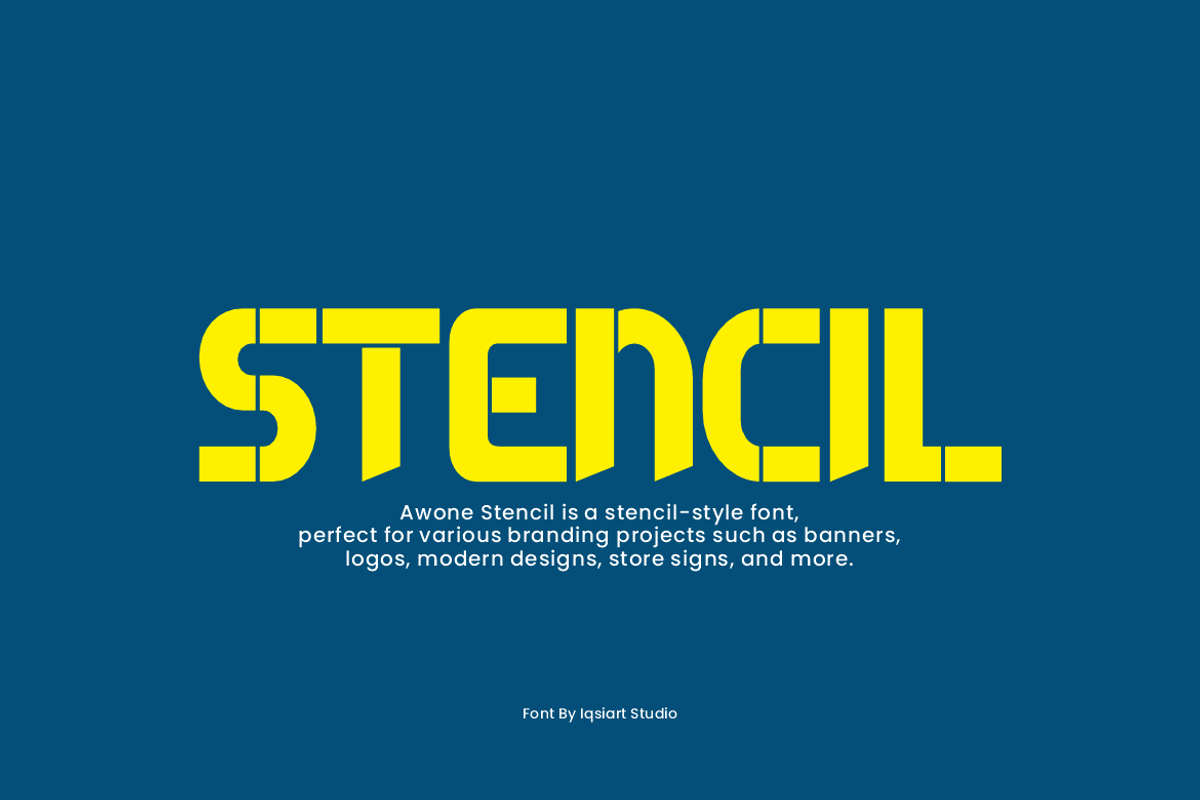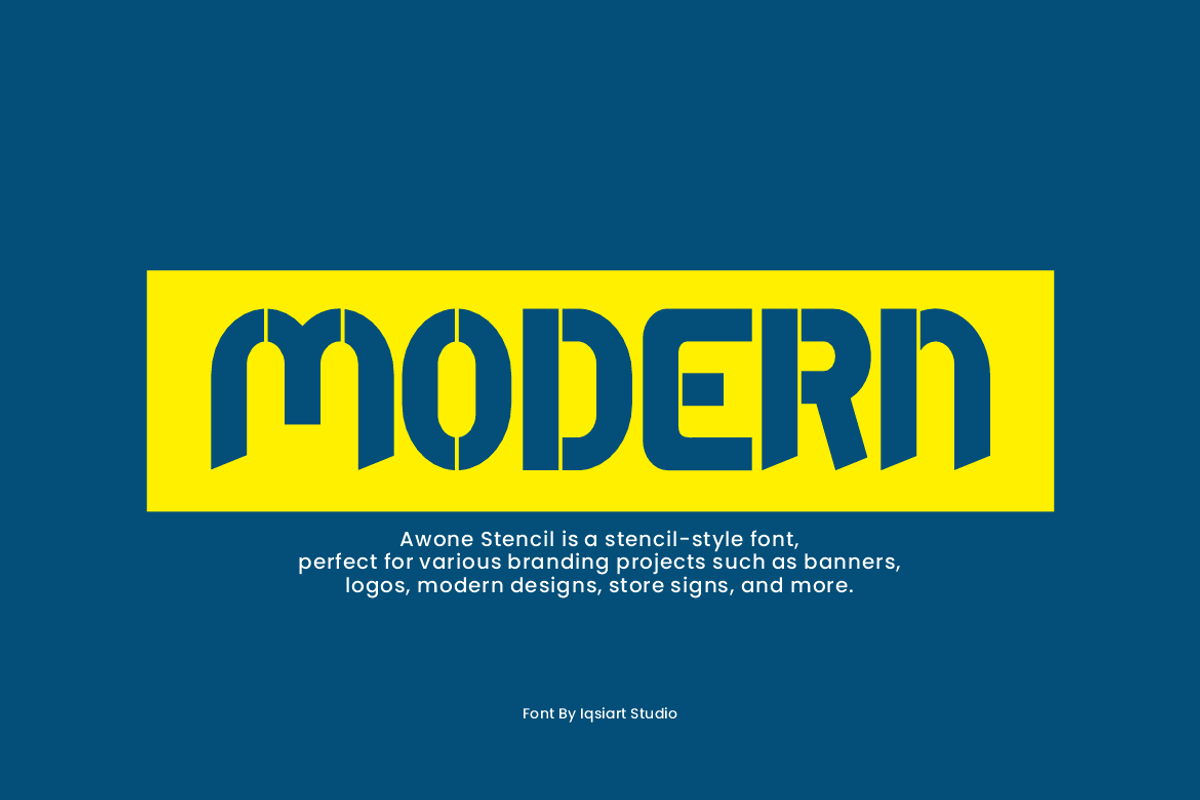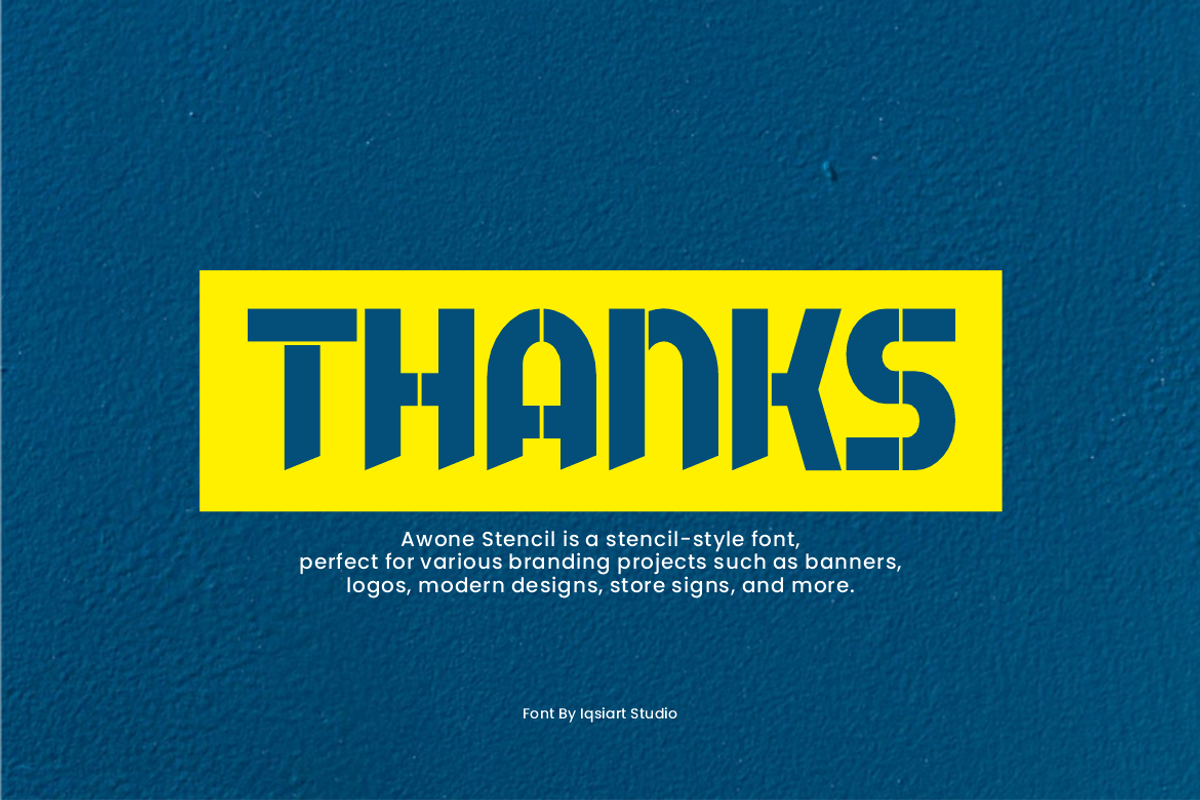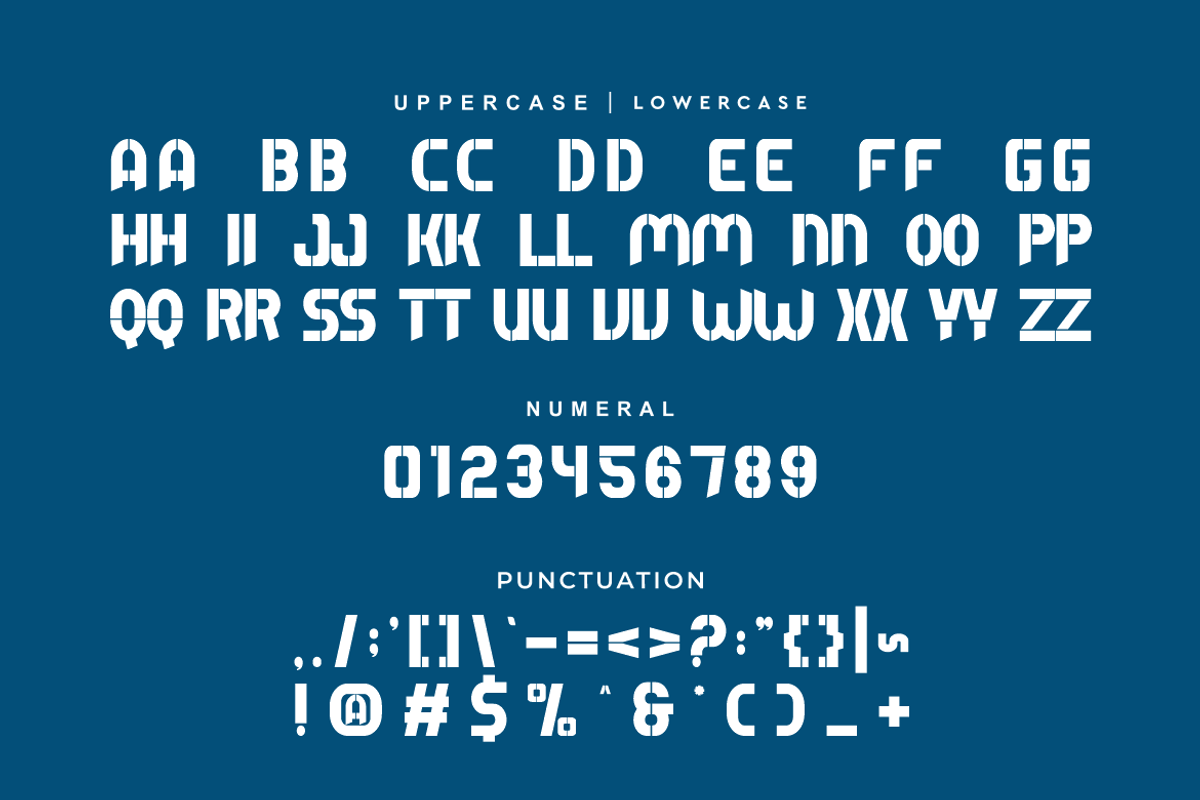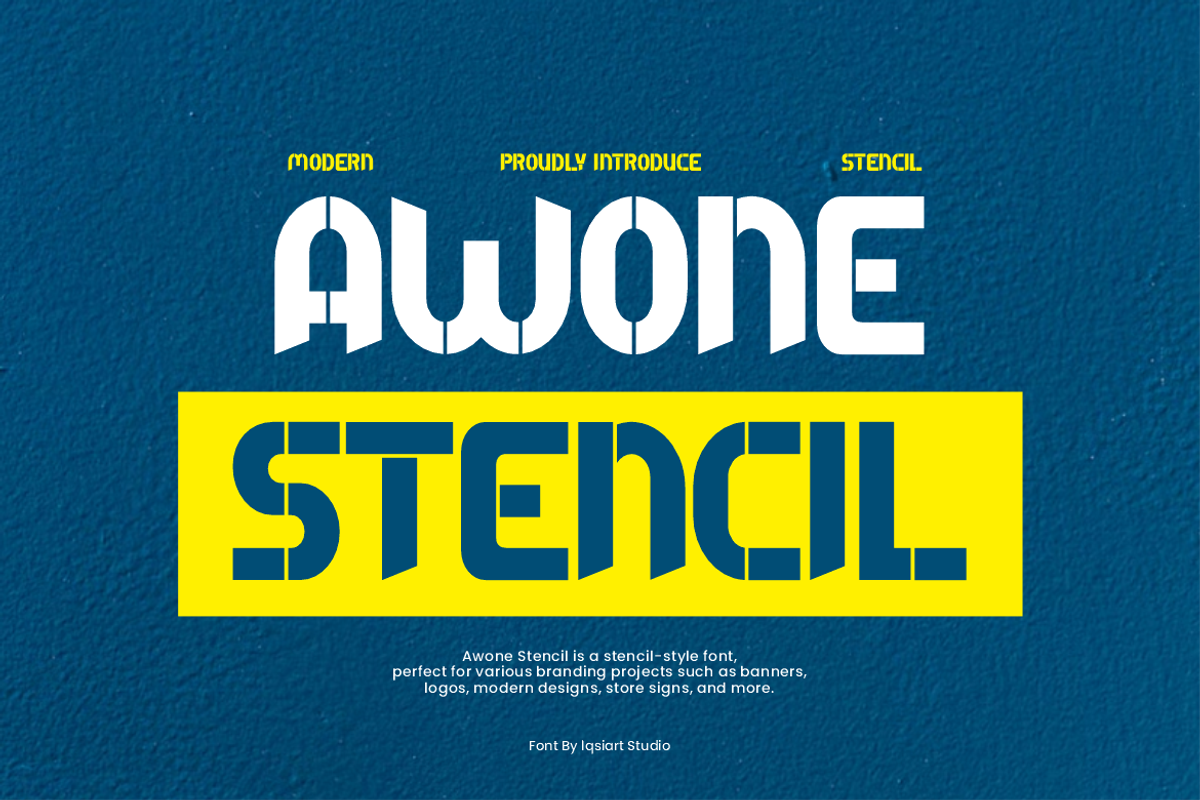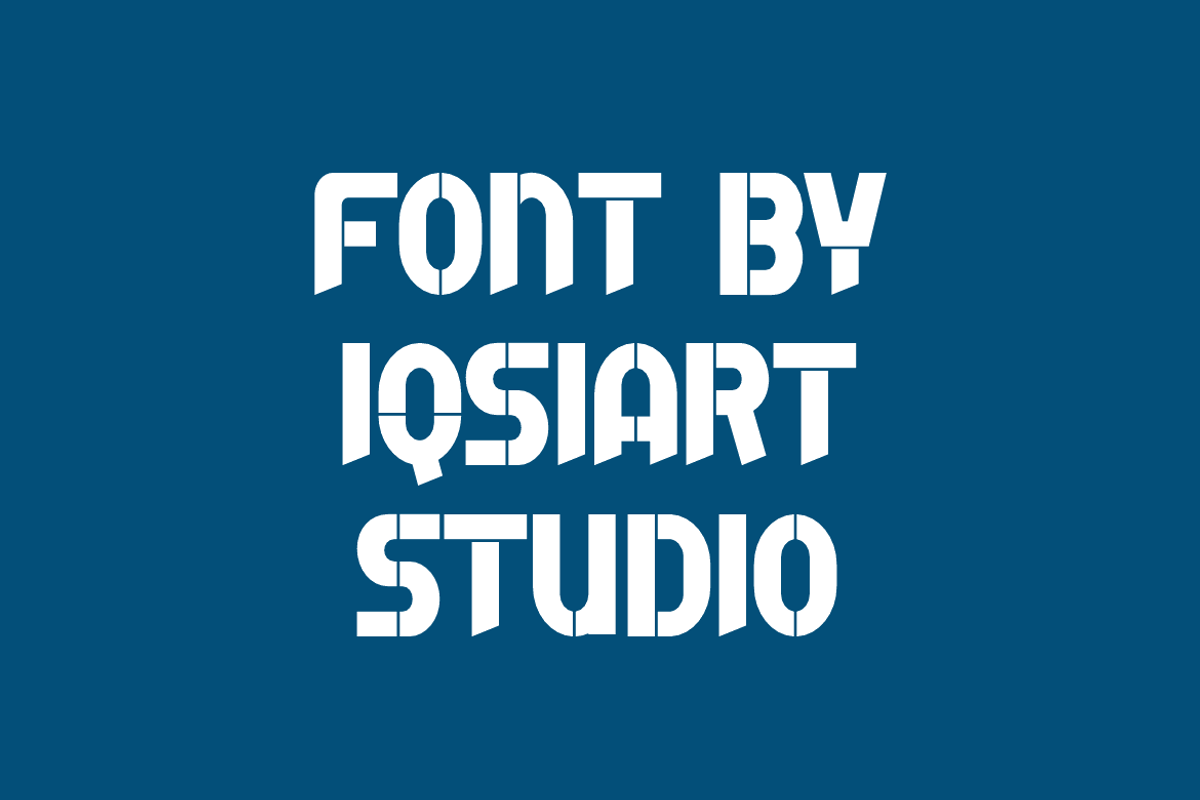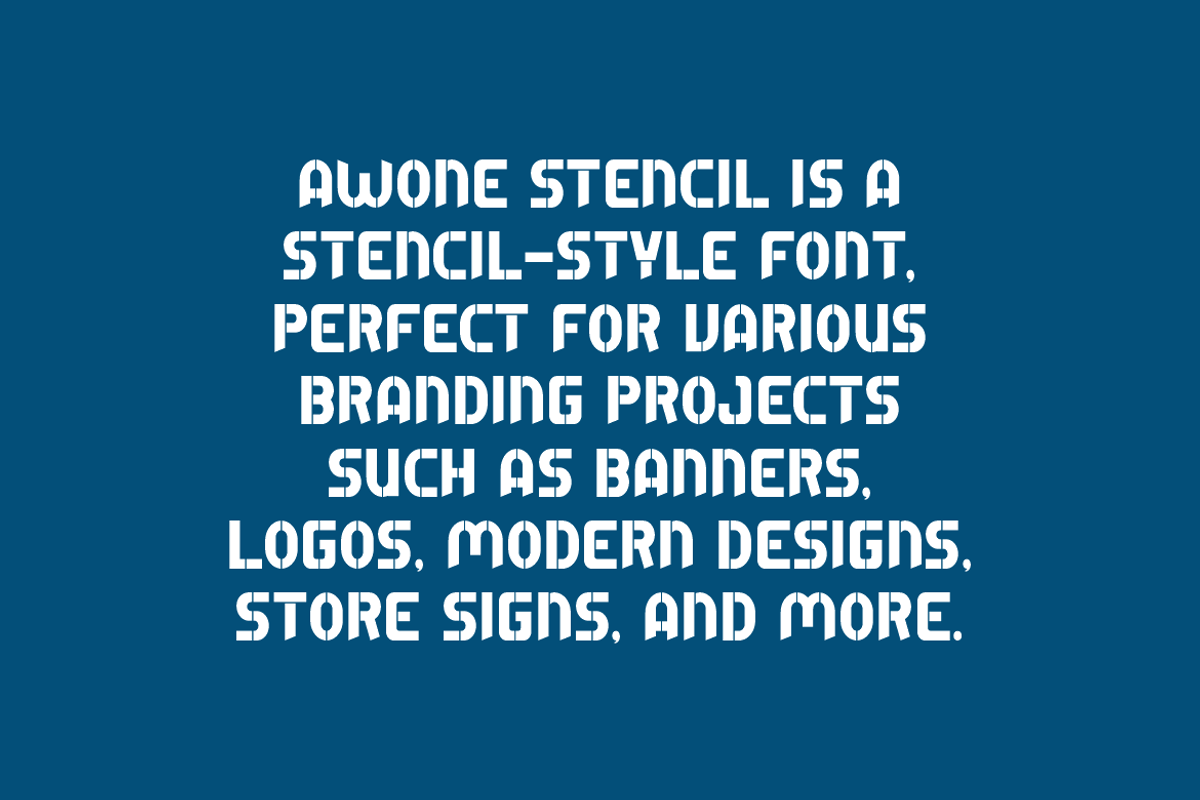
Awone Stencil Font
Awone Stencil Font is a bold and authentic display typeface that suits a variety of design needs. We offer a wide range of themes and font styles — visit our profile to explore more and find the perfect style for your project.